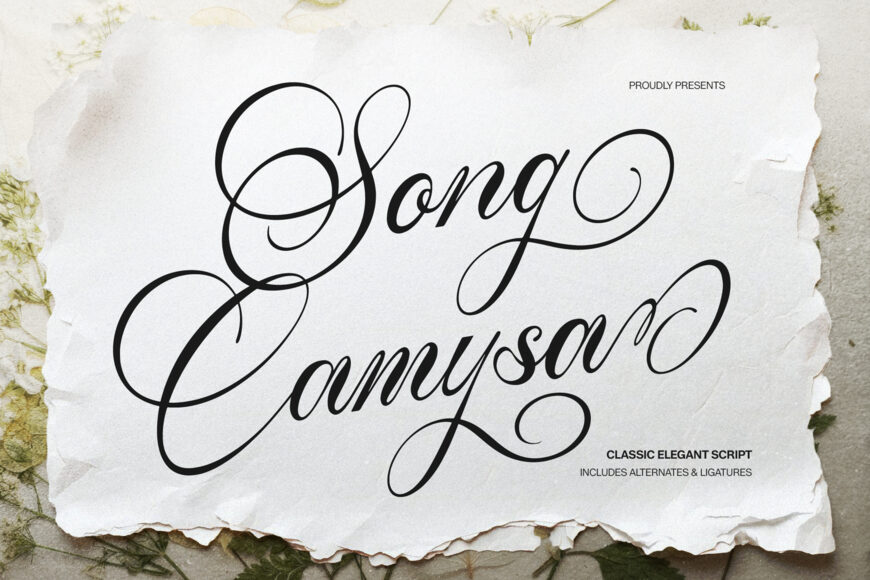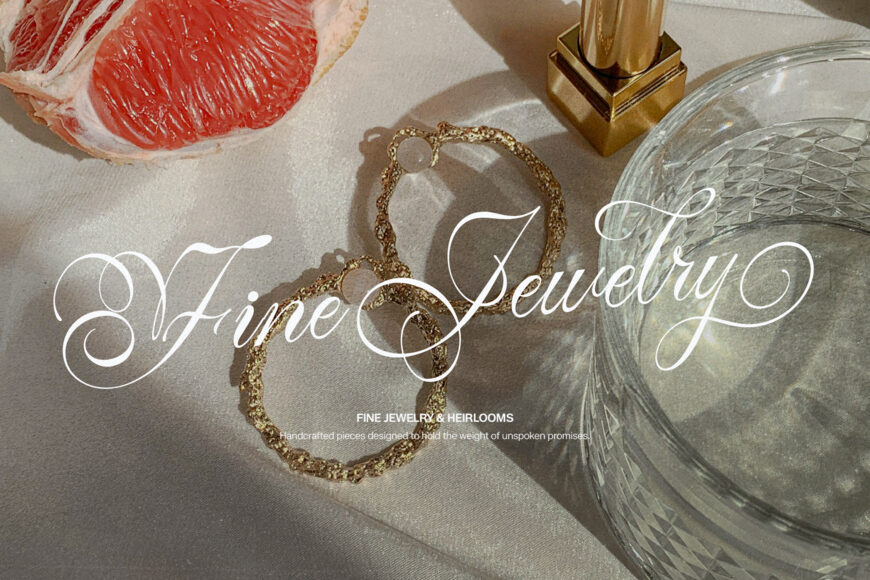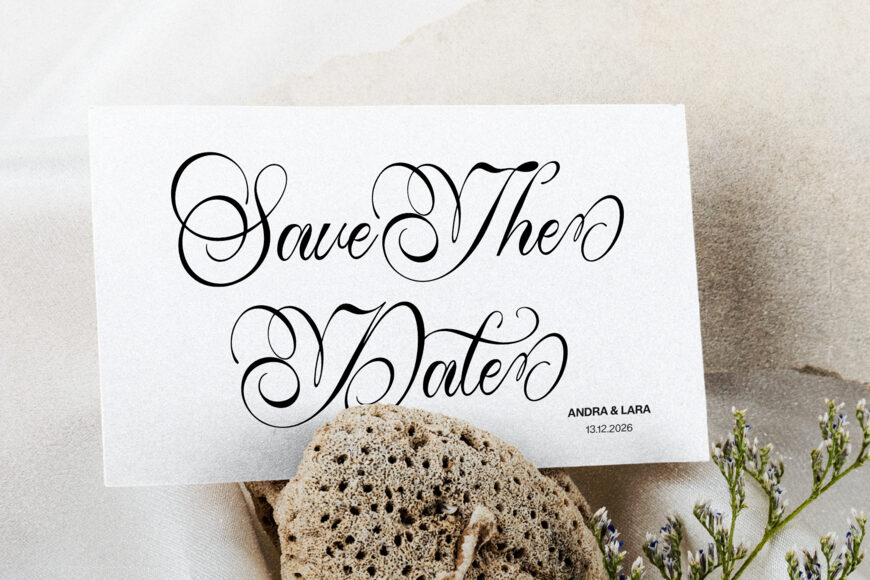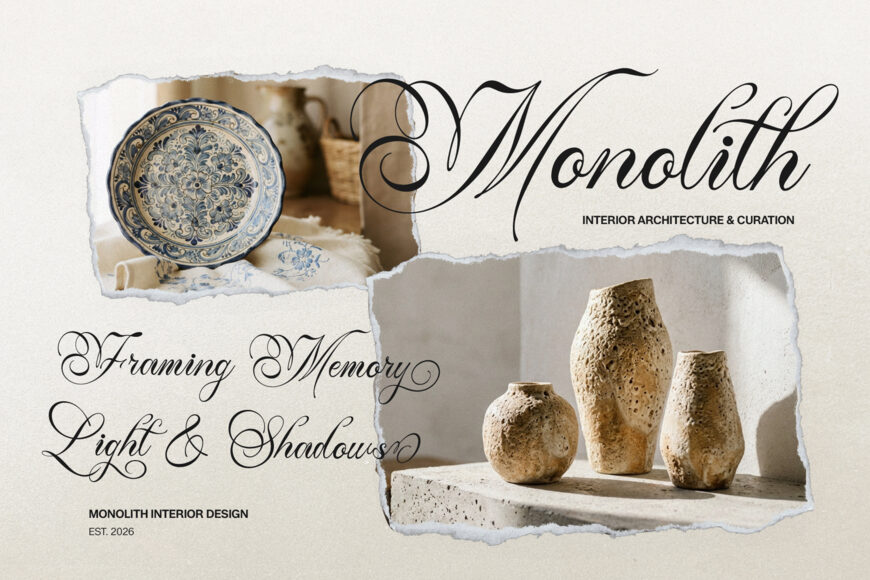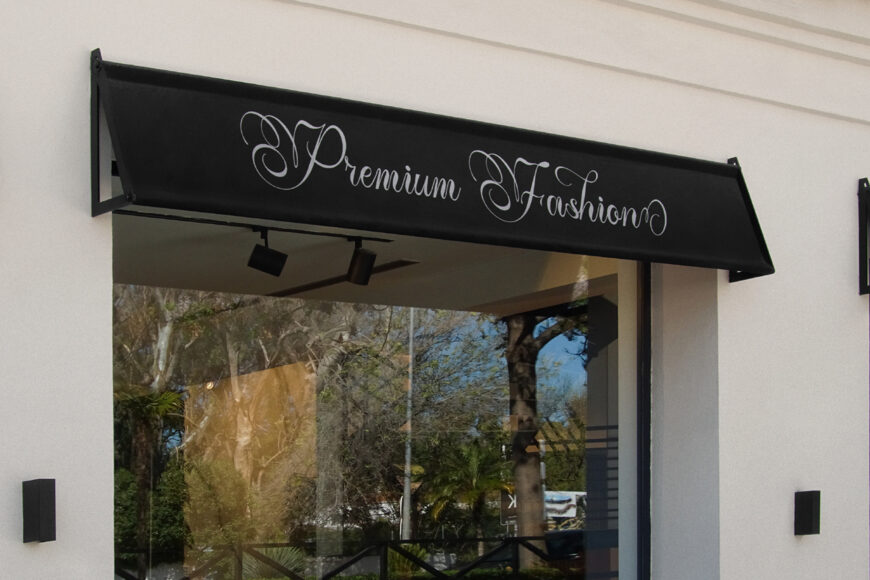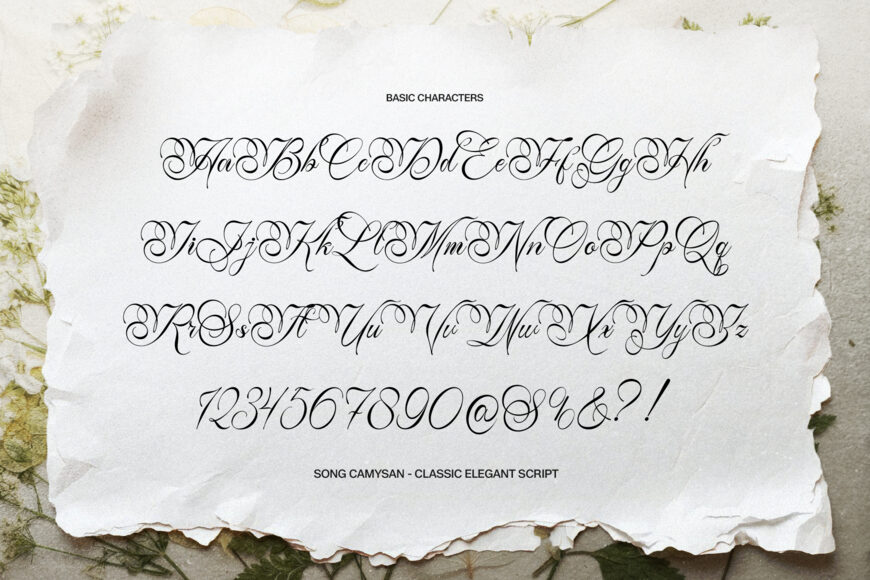
Bring timeless romance to your designs with Song Camysa, an elegant script font featuring sweeping calligraphic loops, graceful hairlines, and flowing cursive strokes.
Its grand capitals, stylish alternates, and refined ligatures create a luxurious look with vintage charm—perfect for display headlines and handcrafted projects. Use it for wedding invitations, bridal stationery, upscale branding, signature logos, floral packaging, romantic quote prints, greeting cards, and personalized Cricut or Silhouette SVG designs.